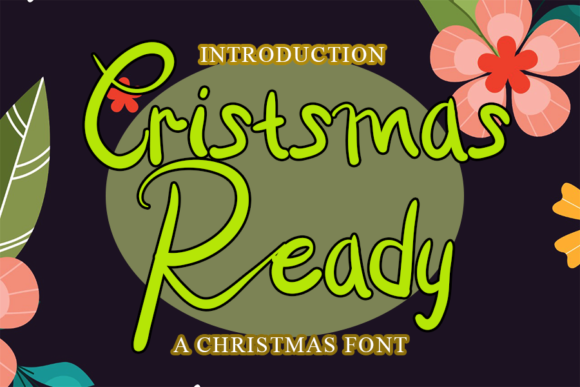
Deck the Halls with Typography: Introducing Cristsmas Ready Font
It’s that time of the year when the air is filled with the spirit of creativity, and designers around the world are busy conjuring up magical designs to spread holiday cheer. As you sit at your desk, surrounded by twinkling lights and festive decorations, the urge to create something truly special strikes. Your mind starts racing with ideas, and the perfect font comes to mind – Cristsmas Ready Font.
This delicate and elegant handwritten font is a masterpiece in its own right. With its distinct and well-rounded letters, it’s the perfect addition to any design project. Whether you’re creating a holiday card, a festive flyer, or a special gift, Cristsmas Ready Font will make your design truly unforgettable.
As a designer, you understand the importance of having the right tools at your disposal. Cristsmas Ready Font is a valuable asset to any design arsenal, offering unparalleled versatility and style. So why not get creative with Cristsmas Ready Font and make this holiday season one to remember?
Key Features of Christmas Ready Font
- Font Family: Christmas Ready Font is a unique, hand-drawn font designed specifically for the holiday season. It features a warm and festive feel, perfect for creating holiday-themed designs.
- Resolution: Designed to be scalable, Christmas Ready Font can be used at high resolutions (up to 300 DPI) without losing its unique charm.
- Unique Characteristics: The font features intricate, hand-drawn details, including ornaments, holly leaves, and snowflakes, adding a touch of whimsy and festivity to any design.
Designer Review: Christmas Ready Font
As a designer, I was excited to dive into the Christmas Ready Font, a festive font meant to capture the holiday spirit. Overall, I think the font is a solid addition to any designer’s toolkit, but it’s not without its limitations.
- The font is incredibly festive and playful, perfect for holiday marketing materials or social media posts.
- The font is well-designed and easy to read, even in smaller sizes.
- The font includes a range of characters, including punctuation and symbols, which is a nice touch.
- The font is limited to a single style, which may not be ideal for designers who want more flexibility.
- The font may not be suitable for formal or professional applications, as it’s a bit too playful for those types of projects.
- The font could benefit from more customization options, such as bold or italic versions.
Overall, I think the Christmas Ready Font is a fun and festive addition to any designer’s toolkit. While it may not be perfect, it’s a solid choice for holiday-themed projects or social media posts. With a bit more development, I think this font could be even more effective. For now, I’d give it 3.5 out of 5 stars.
Some tips for getting the most out of Christmas Ready Font include:
- Experiment with different font combinations and styles to create a unique look.
- Use the font to create festive headings and titles.
- Apply the font to your branding and marketing materials for a cohesive look.
Common use cases for Christmas Ready Font include:
- Christmas card designs and invitations.
- Holiday marketing materials and ads.
- Branding and packaging for holiday-themed products.